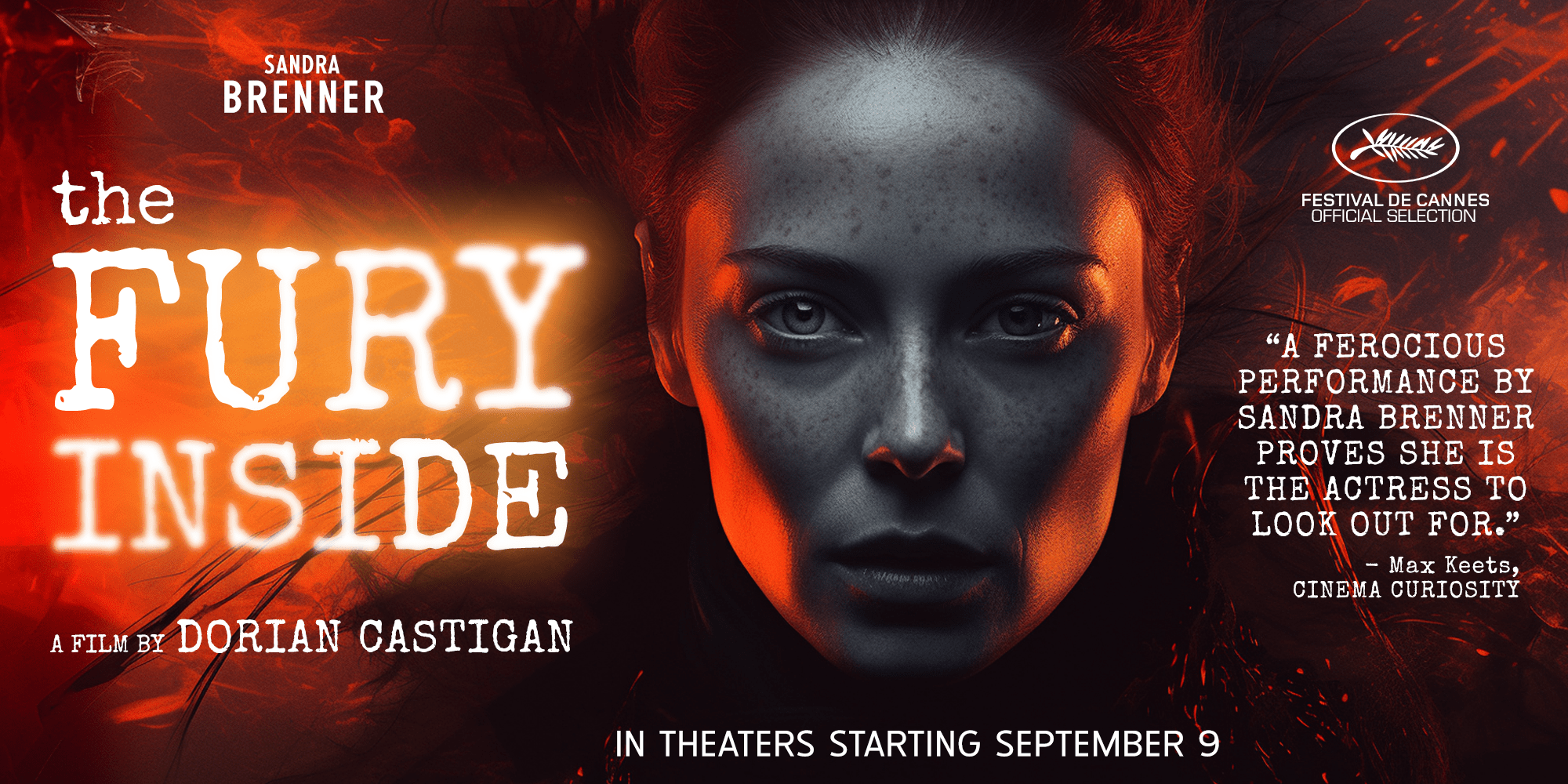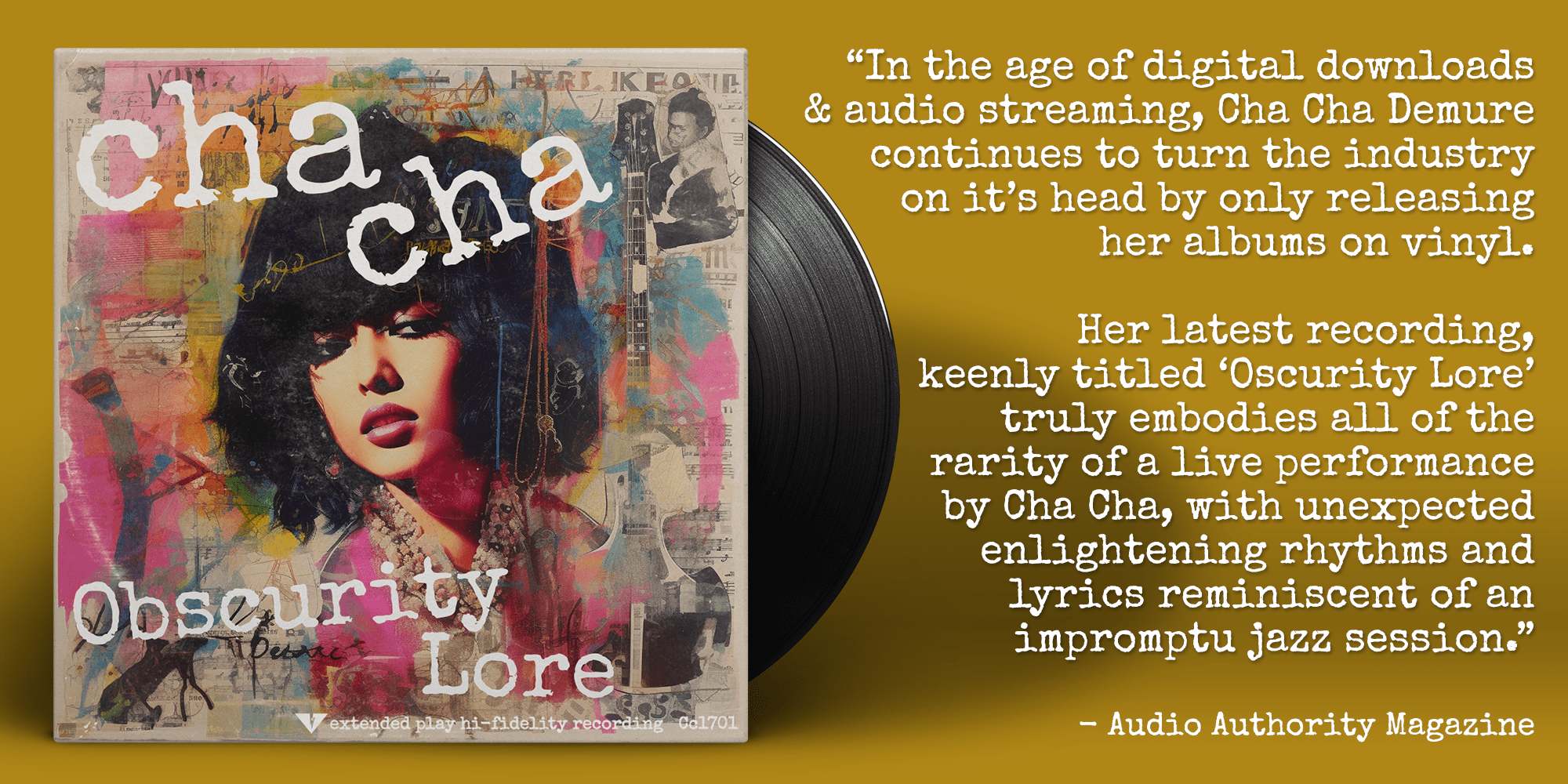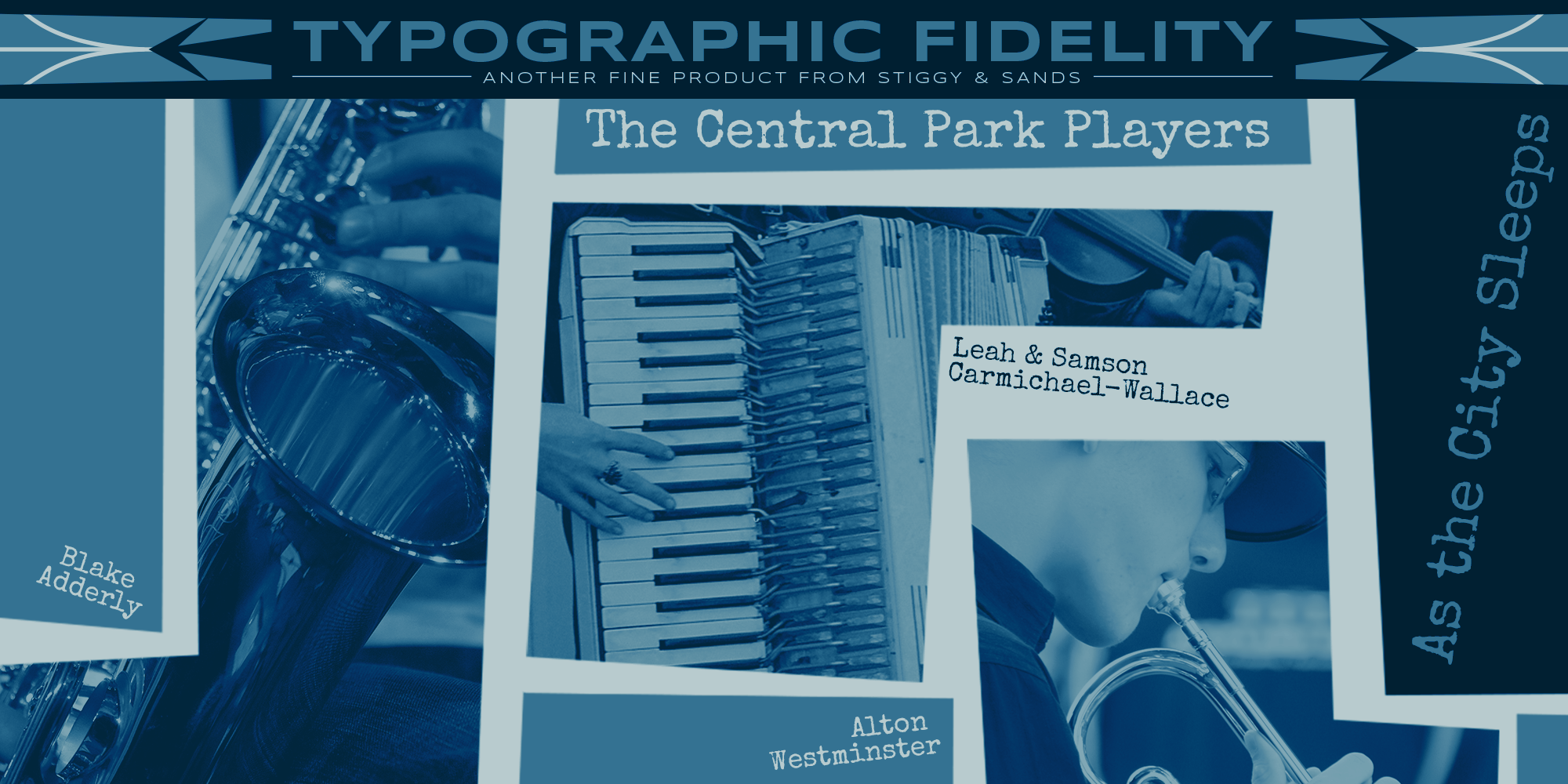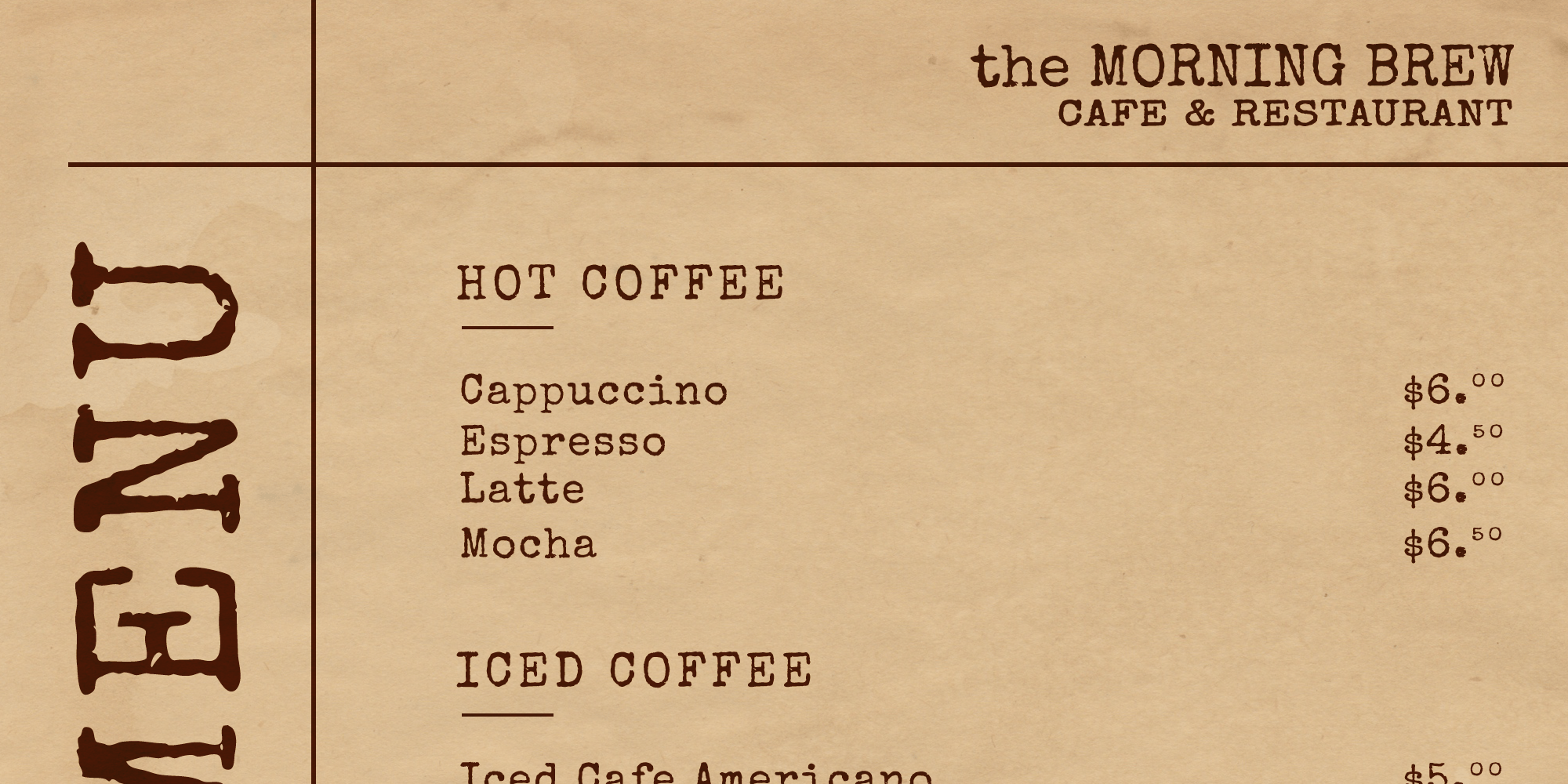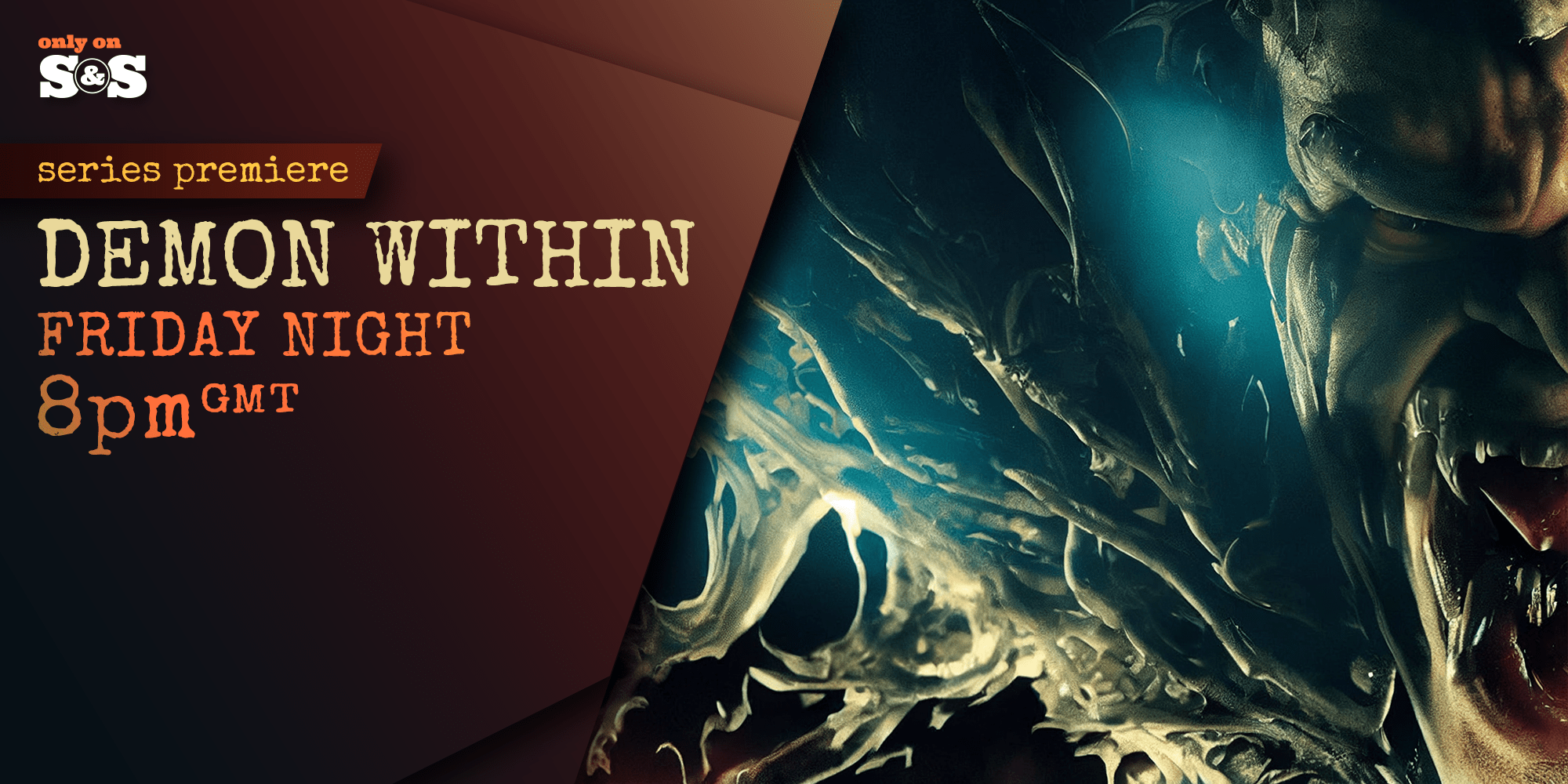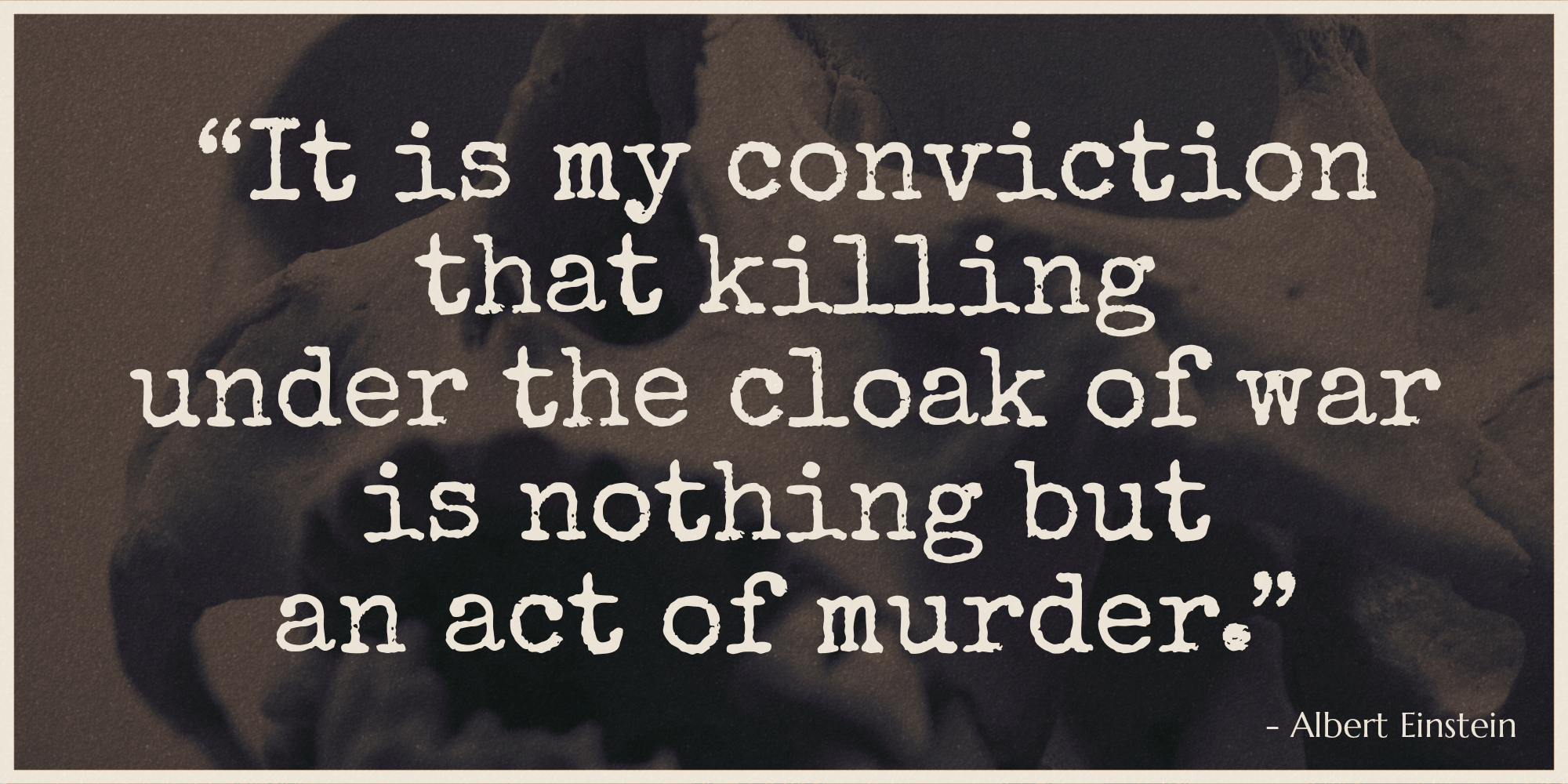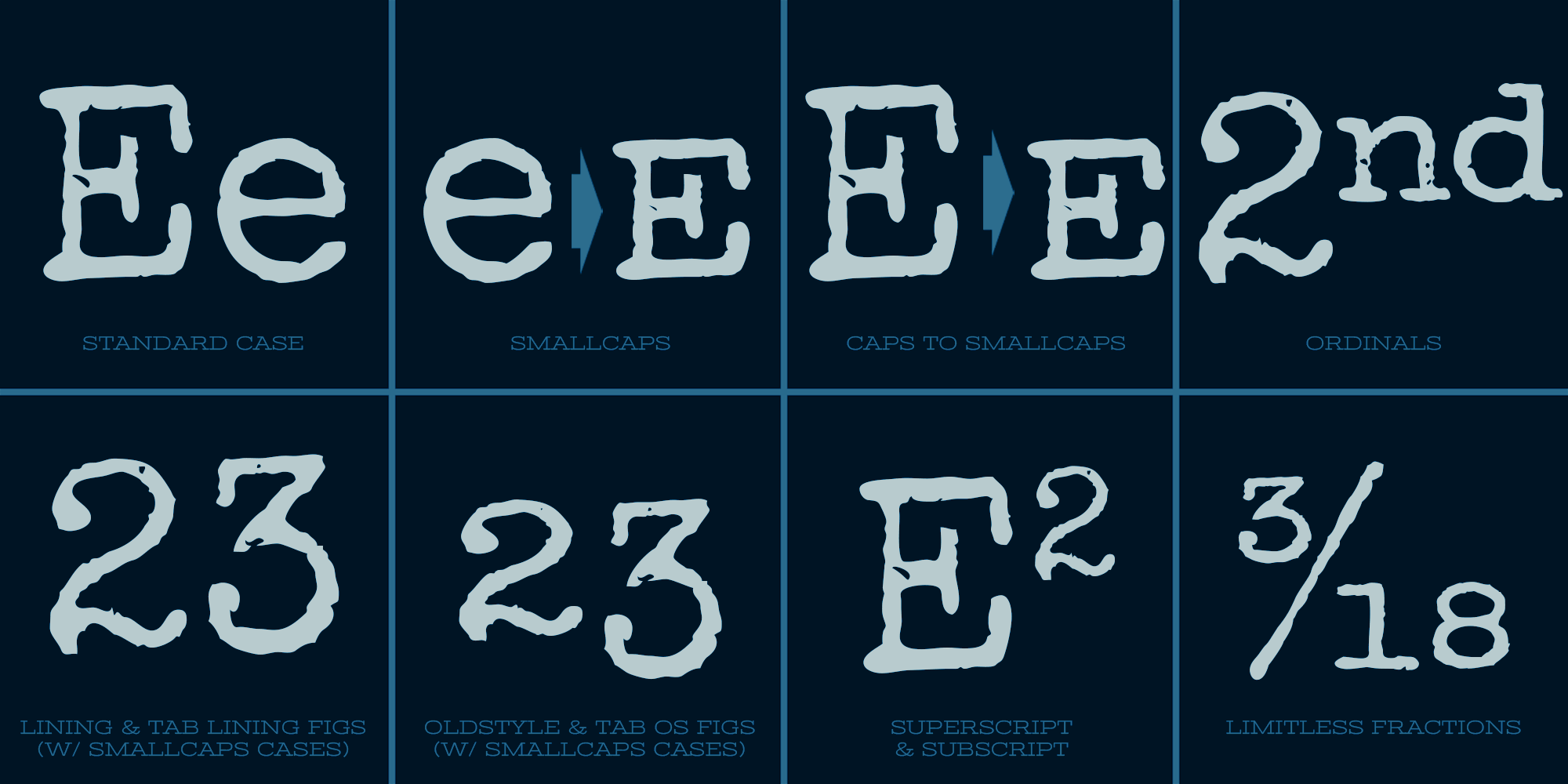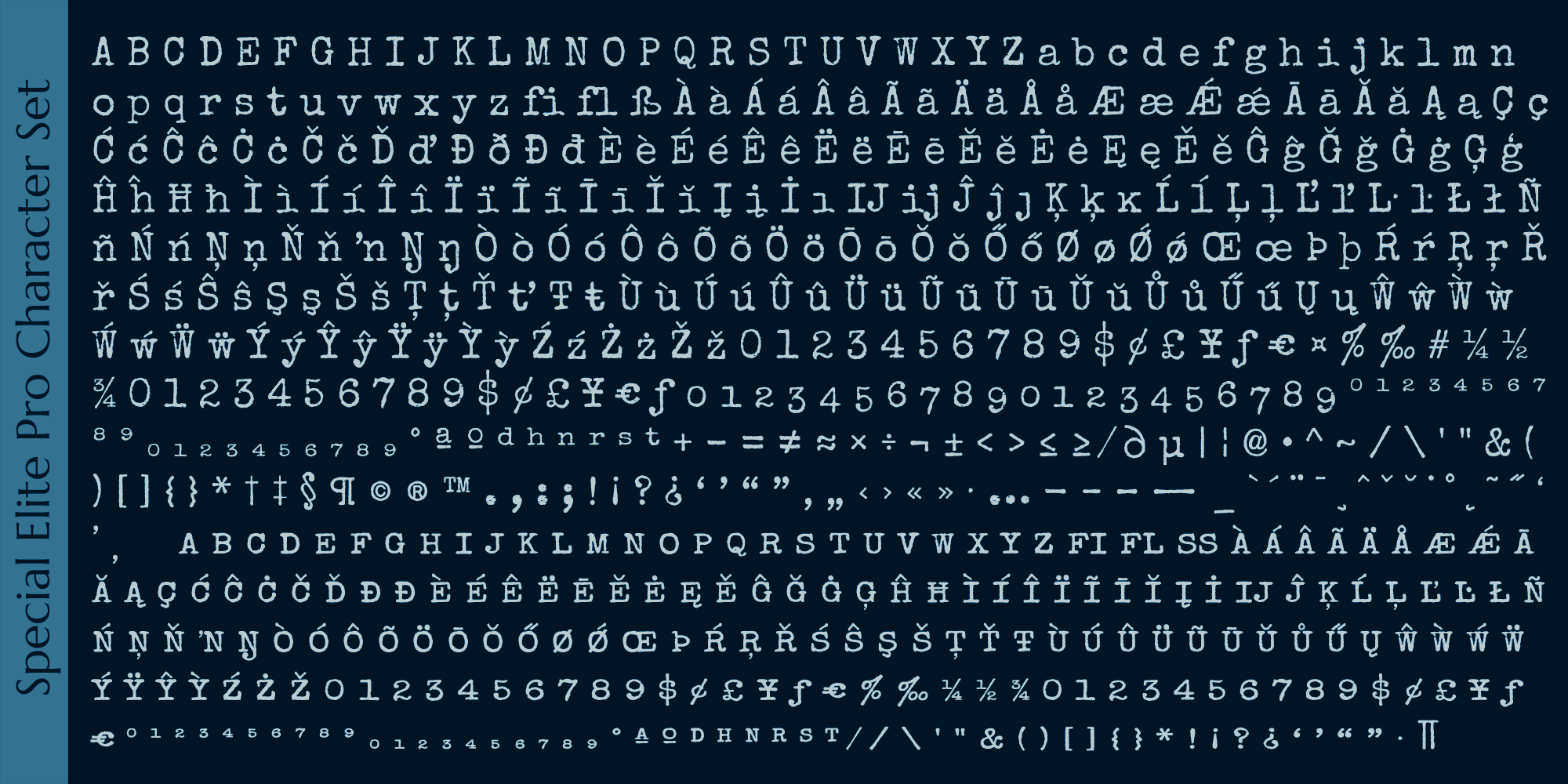
Special Elite Pro
Font Family by Stiggy & Sands
Our Special Elite Pro brings the unique individuality of the Special Elite Type No. NR6 vintage typewriter keyset to the digital age. Antique typewriters would type with a warmth and appeal to them, primarily because of their unpredictable "grunge" results from force of keystrokes to ribbon and paper. The SmallCaps and extensive figure sets add a more serious note to the nature of the typeface.
Opentype features include:
- SmallCaps.
- Full set of Inferiors and Superiors for limitless fractions.
- Tabular, Proportional, and Oldstyle figure sets (along with SmallCaps versions of the figures).
- Stylistic Alternates for Caps to SmallCaps conversion.